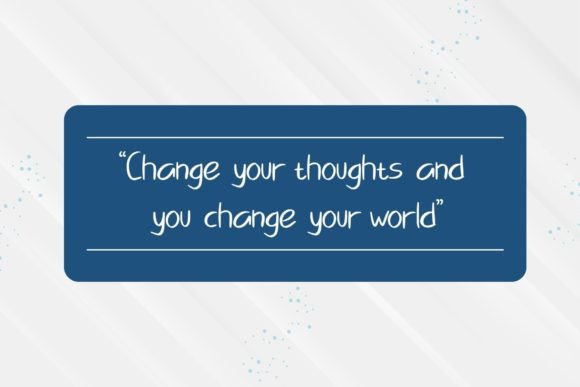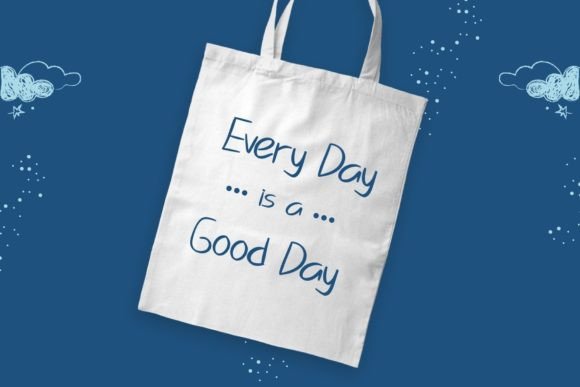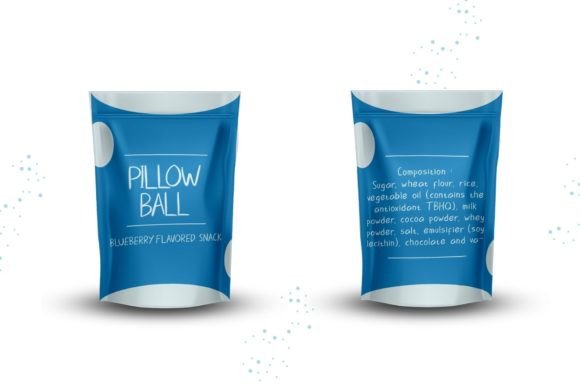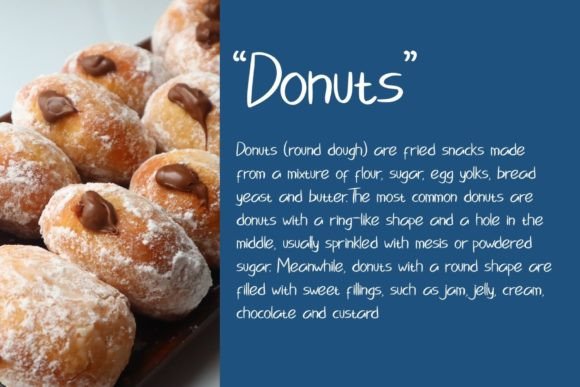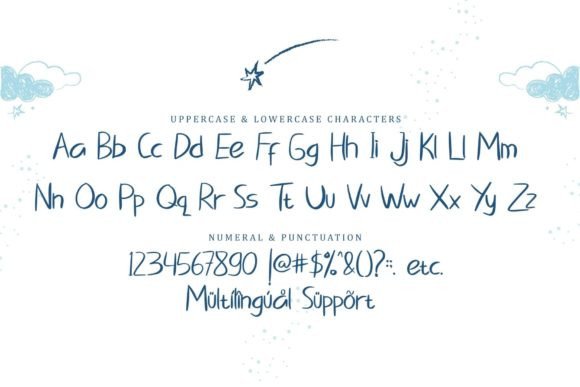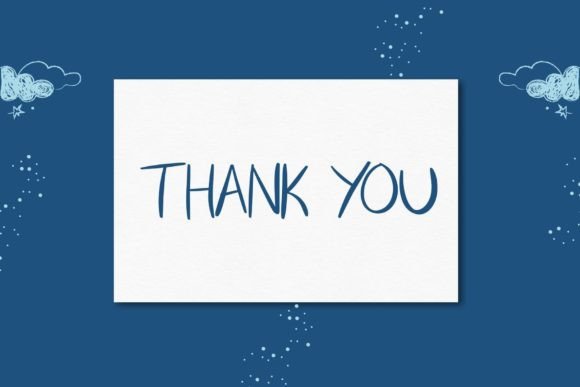
Dino Blue Font: A Sweet and Friendly Handwritten Font for Your Designs
Are you looking for a font that can add a touch of sweetness and friendliness to your designs? Look no further than Dino Blue, a beautiful handwritten font that is perfect for a wide range of projects. With its natural and unique style, Dino Blue is incredibly versatile and can be used in everything from digital designs to print materials.
What Makes Dino Blue So Special?
Dino Blue is a one-of-a-kind font that stands out from the crowd. Its sweet and friendly style makes it perfect for designs that need a personal touch. Whether you’re creating a logo, a poster, or a social media graphic, Dino Blue is sure to bring a smile to your audience’s faces. The font’s natural and unique style also makes it incredibly fitting for a large pool of designs, from rustic and vintage to modern and playful.
The Possibilities Are Endless with Dino Blue
The best part about Dino Blue is that the only limit is your imagination! With this font, you can create anything you can think of. Want to create a beautiful wedding invitation? Dino Blue is perfect for the job. Need a logo for your kids’ party business? Dino Blue is sure to delight. From digital designs to print materials, Dino Blue is the perfect choice for any project that needs a personal touch.
Why Designers and Crafters Love Dino Blue
Designers and crafters love Dino Blue for its versatility and charm. The font is easy to read and use, making it perfect for a wide range of projects. Plus, its unique style ensures that your designs will stand out from the crowd. Whether you’re a professional designer or a crafter, Dino Blue is sure to become one of your go-to fonts.
Tips and Tricks for Getting the Most Out of Dino Blue
Here are a few tips and tricks for getting the most out of Dino Blue:
- Pair Dino Blue with other fonts to create a unique and eye-catching combination.
- Use Dino Blue to add a personal touch to your designs, such as in a logo or title.
- Don’t be afraid to get creative and try new things – the possibilities are endless with Dino Blue!
In conclusion, Dino Blue is a sweet and friendly handwritten font that is perfect for designers and crafters. Its natural and unique style makes it incredibly versatile and fitting for a wide range of designs. With its ease of use and endless possibilities, Dino Blue is sure to become a favorite font for anyone who uses it. So why wait? Download Dino Blue today and start creating your own unique designs!
- What type of font is Dino Blue? Dino Blue is a handwritten font.
- Is Dino Blue easy to read? Yes, Dino Blue is easy to read and use.
- Can I pair Dino Blue with other fonts? Yes, Dino Blue pairs well with other fonts.